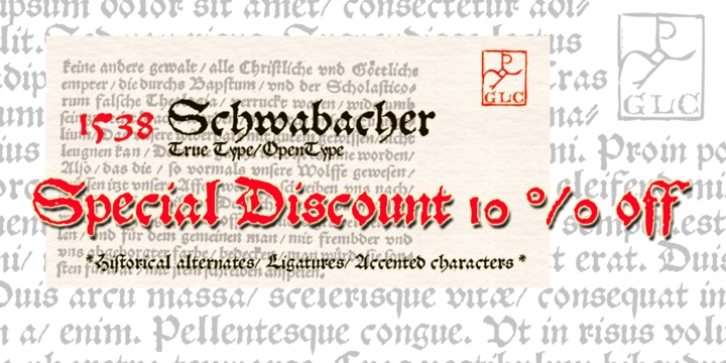
This 1538 Schwabacher was based on a font used by Georg Rhau in Wittemberg (Germany) to print Des Babsts Hercules [...], a German pamphlet against roman catholicism written by Johannes Kymeus.
The original font has a relatively complete set of characters including "long s", but also the special german types like k, fl or ‰, ˆ, ¸.... A few omissions were remedied, and accented letters were added. A render sheet, enclosed with font files, help to identify them on keyboard.
It can be used as web-site titles, posters and fliers, editing ancient texts, menus or greeting cards as a very decorative font...
Although this font remains clear and easy to read from 8 or 9 points on screen, it is clearly designed for print works.